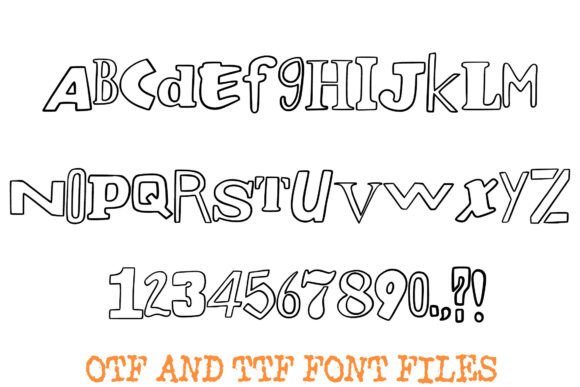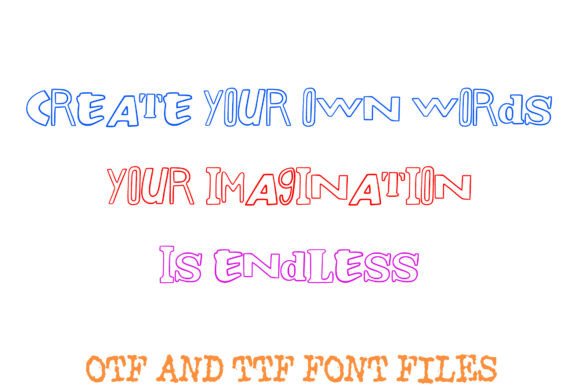
Unleashing the Chaos with Ransom Outline Font
Have you ever stared at a blank canvas, struggling to find the perfect font to capture the essence of your creative project? You know, that moment when inspiration strikes, and you desperately search for the perfect design resource to bring your idea to life? Well, put down your search bars, because we’ve got you covered! Introducing the Ransom Outline Font, a game-changing display typeface that’s about to disrupt the way you design.
This unique font is more than just a design element – it’s an experience. Its hand-drawn aesthetic, complete with irregular serifs, playful sans-serif curves, and inconsistent baselines, screams creativity and rebellion. Perfect for projects that demand a grunge, rebellious, or quirky DIY look, the Ransom Outline Font is a high-quality design resource that’s sure to make your work stand out. And the best part? It’s available for free download, complete with a transparent background and a range of formats to suit your needs.
Key Features of Ransom Outline Font
- Ransom Outline Font is a unique and stylish design resource ideal for creative projects requiring a touch of elegance.
- Ransom Outline Font’s unique outline design makes it stand out from other fonts, adding a touch of sophistication to any design.
Honest Review: Ransom Outline Font
I recently had the chance to try out the Ransom Outline Font and I must say, it’s a unique addition to my design resource collection. One thing that stands out is the high quality of the font itself, it’s crisp and clear, making it perfect for creative projects that require a touch of sophistication.
Here are some things that work well with the Ransom Outline Font:
- ✨ Great for use on transparent backgrounds, allowing the design to take center stage.
- ✨ Can be used in a variety of design styles, from modern to vintage.
- ⚠️ The font is a bit limited in terms of customization options, which may not be ideal for designers who like to experiment.
Overall, I’d say the Ransom Outline Font is a solid addition to any designer’s toolkit. While it may not be perfect, its unique style and high quality make it worth considering for your next creative project.
Ransom Outline Font
The Ransom Outline Font is a unique and stylish design resource ideal for creative projects that require a touch of sophistication and elegance. With a transparent background, this high-quality font can be easily integrated into various design platforms.
Tips for Getting the Most Out of the Ransom Outline Font
To get the most out of the Ransom Outline Font, use it in conjunction with other design elements to create a visually appealing design. Experiment with different font sizes, colors, and styles to achieve the desired effect.
The Ransom Outline Font is ideal for use in creative projects such as logos, brochures, business cards, and invitations. Its unique style and high-quality design make it a popular choice among designers.